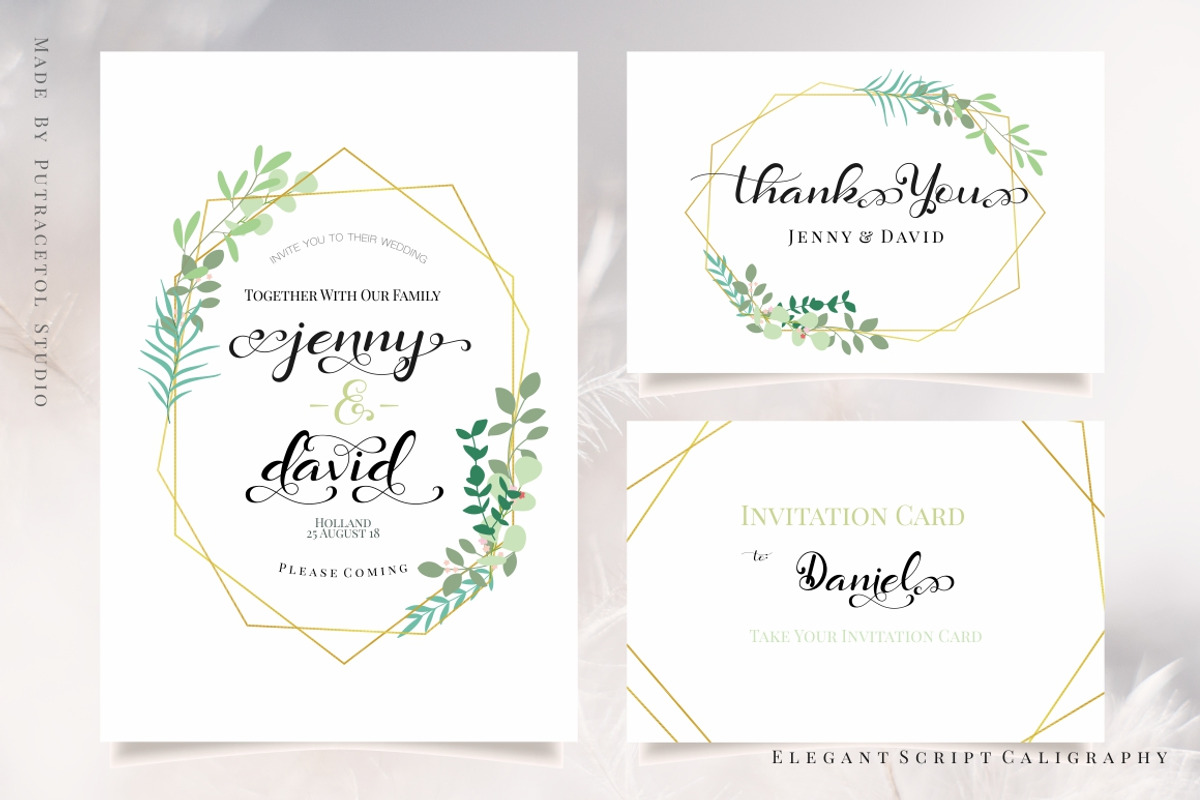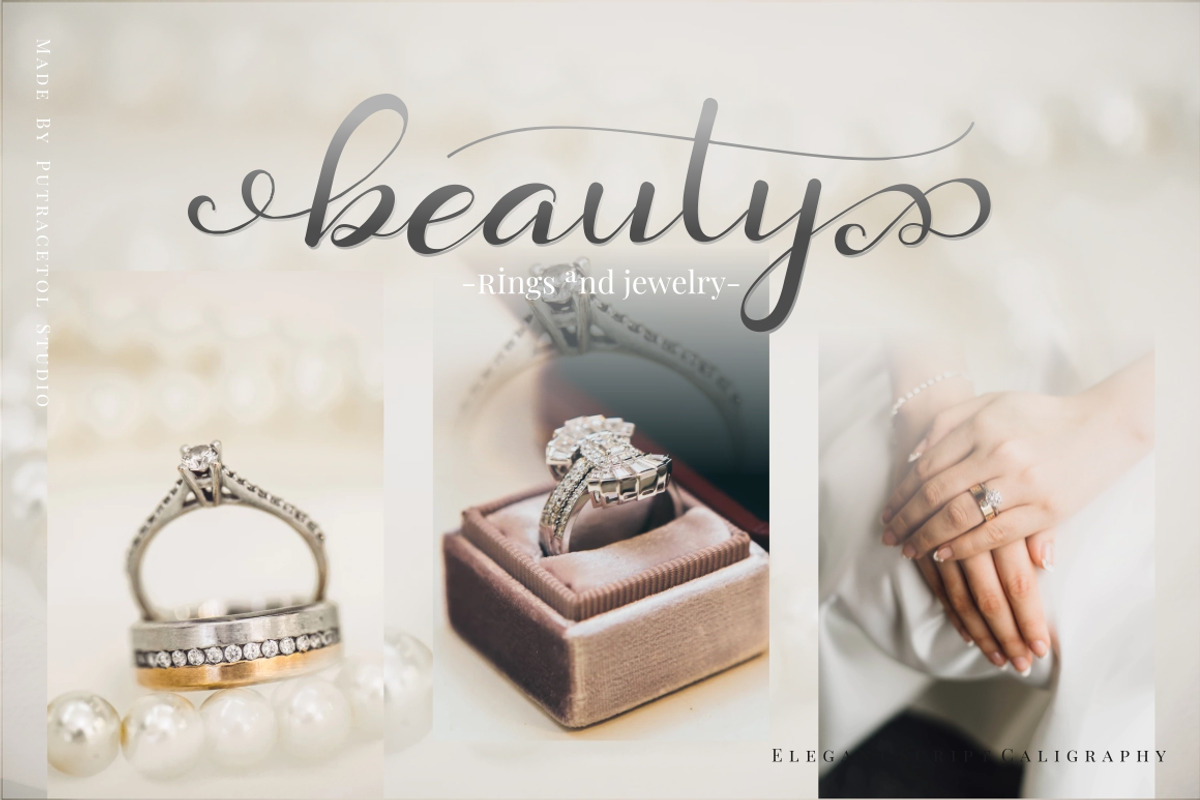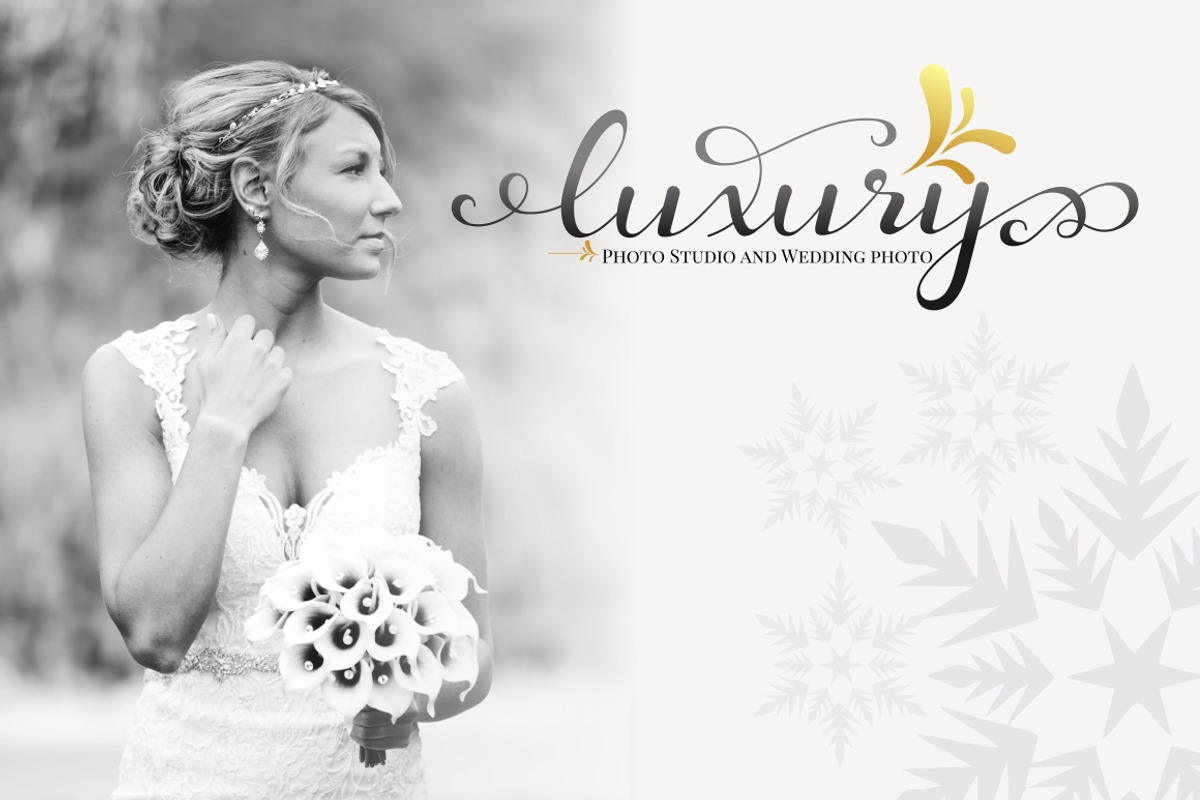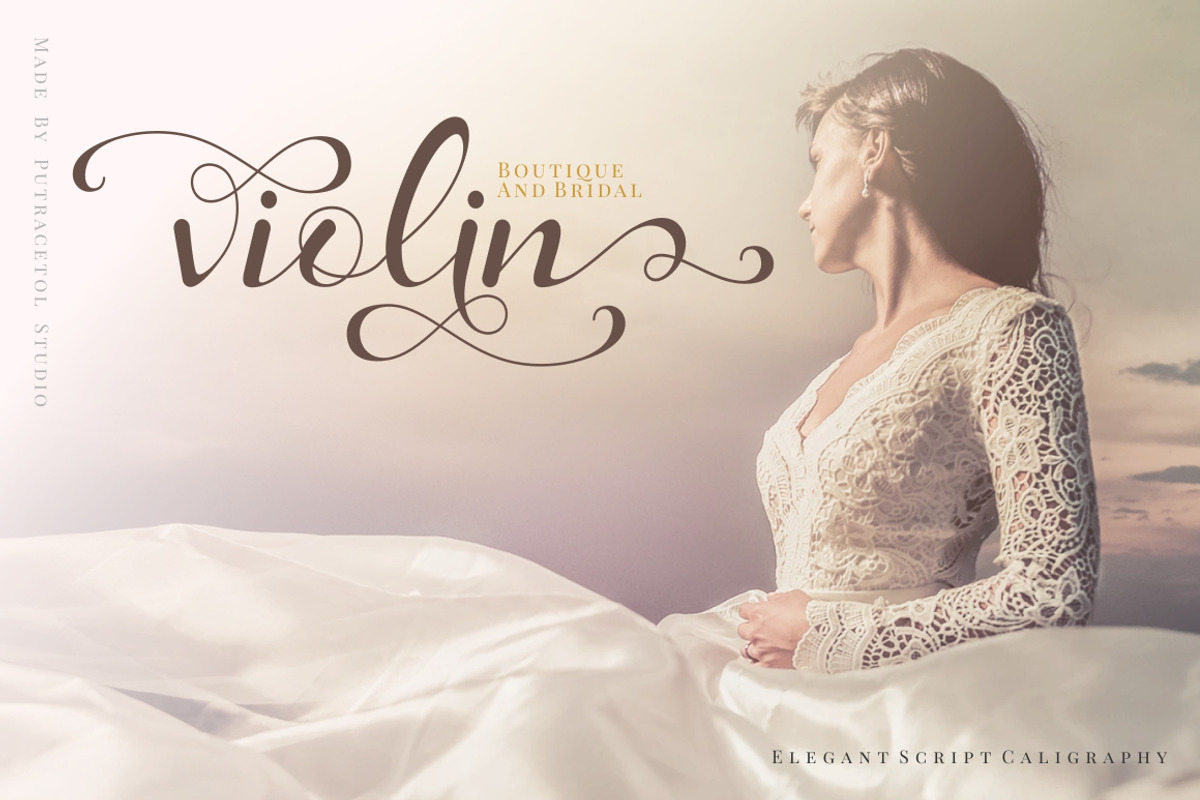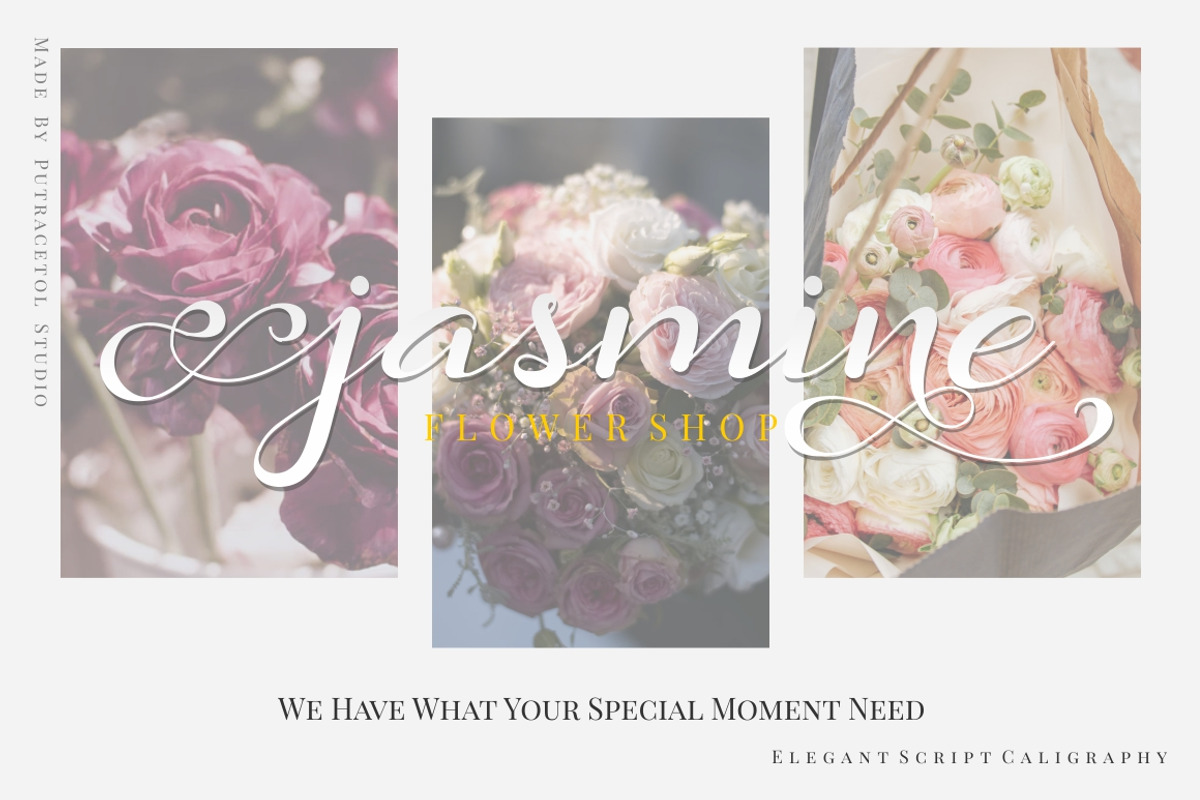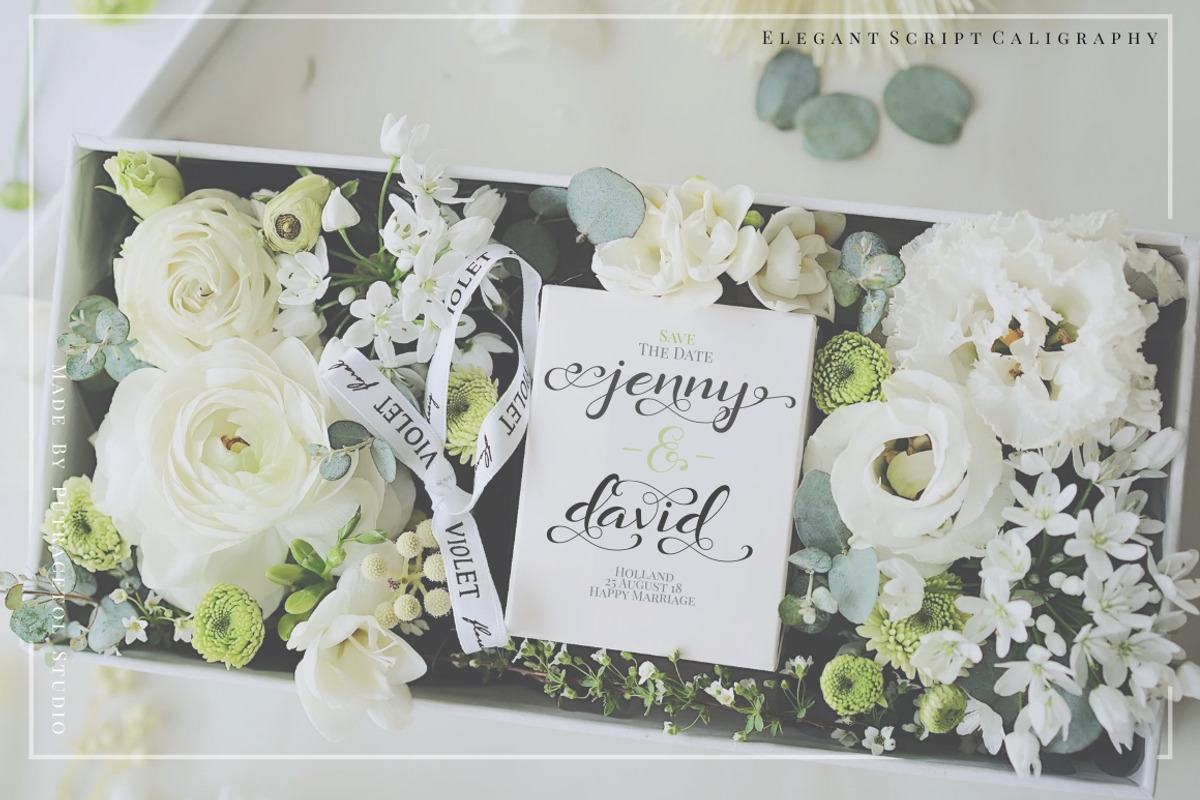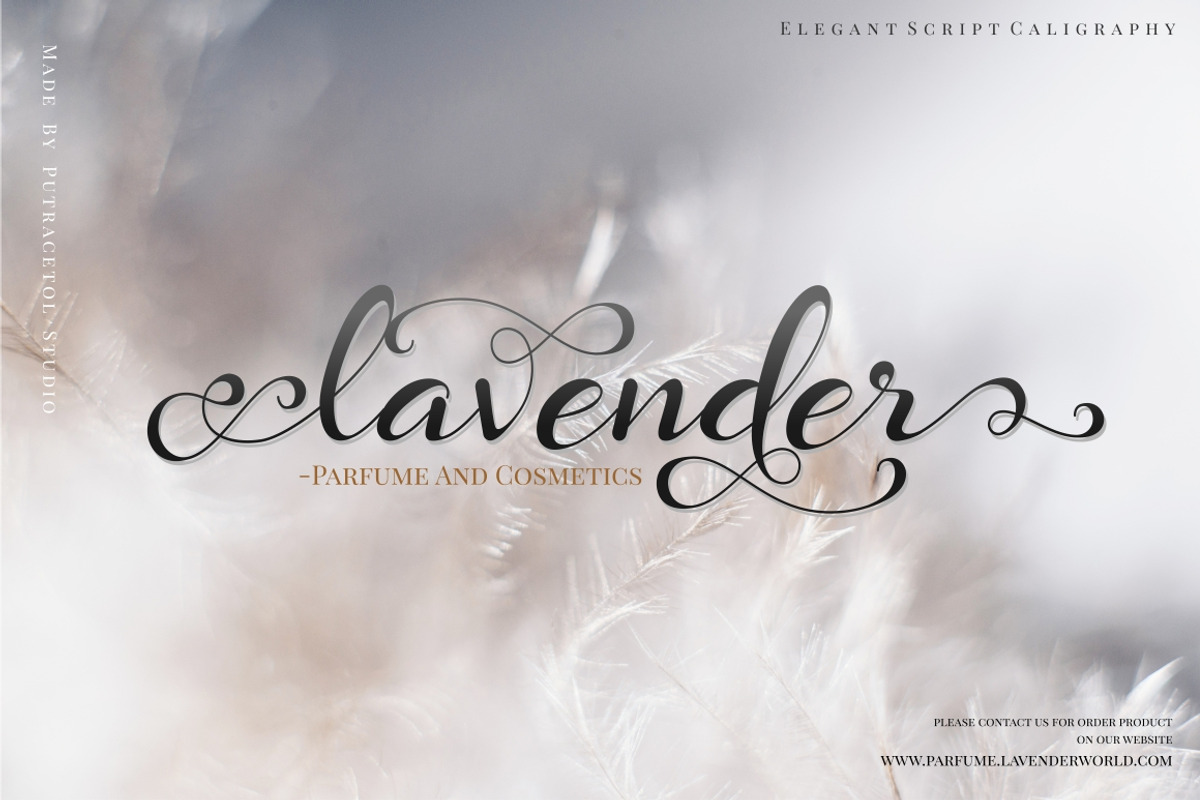
Daysha - Wedding Font
Daysha is a beautiful modern calligraphy wedding font. This font is feminime, elegant, messy and modern. Daysha perfect for wedding event, anniversary, birthday,greeting cards, logotype, branding, wedding invite and card, elegant logo, poster, packaging, stationery, website, and any other projects requiring a handwritten and luxurious touch.
Come with open type feature with a lot of alternates, its help you to make great lettering. This font is also support multi language.